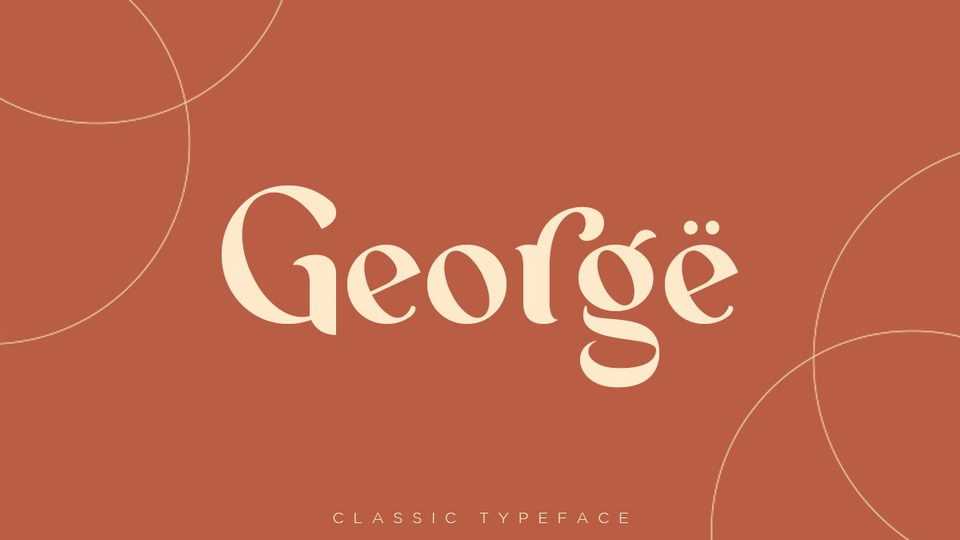
Download George font, a classic serif typeface. Create bold, gorgeous headlines and elegant designs with a vintage flair. George’s contrasting lines and curved terminals give a sleek, elegant look to logos, holiday cards, wedding invitations, quotes, advertisements, and more.